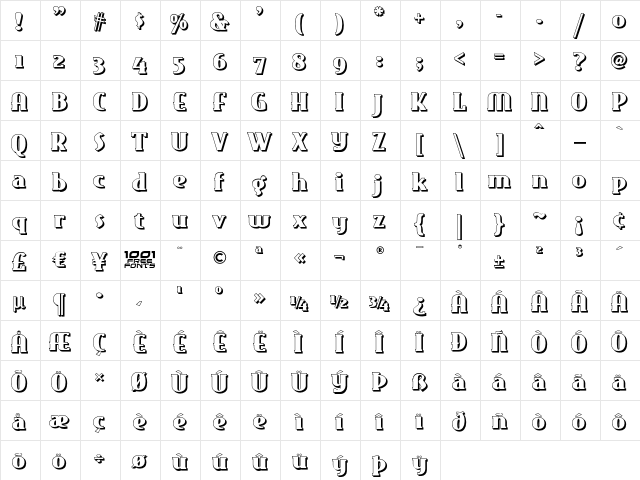
East Market Two NF Regular
Design Context for East Market Two NF Typeface
East Market Two NF is a composed and adaptable typeface that performs quietly and consistently across a wide range of design contexts.